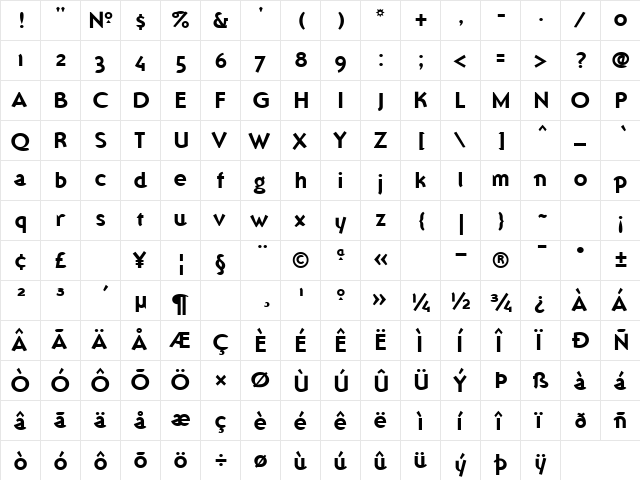
Ottomat Bold
Design Context for Ottomat Typeface
Ottomat takes a measured approach to typography — its balanced proportions and neutral character make it a reliable workhorse for both digital and print work. Its bold stroke weight gives it real presence on the page.